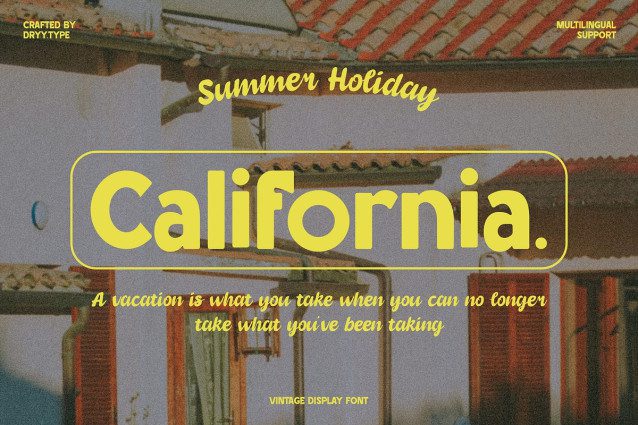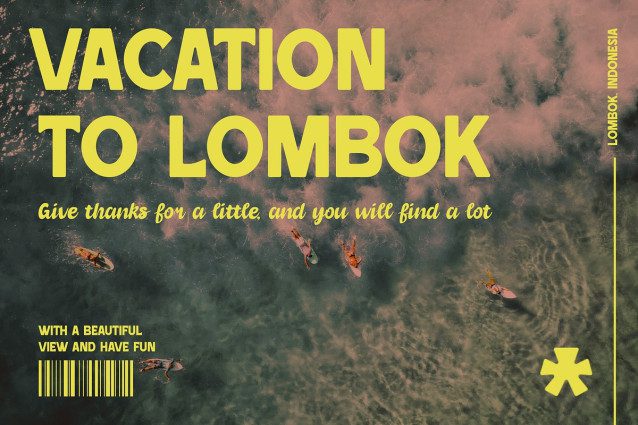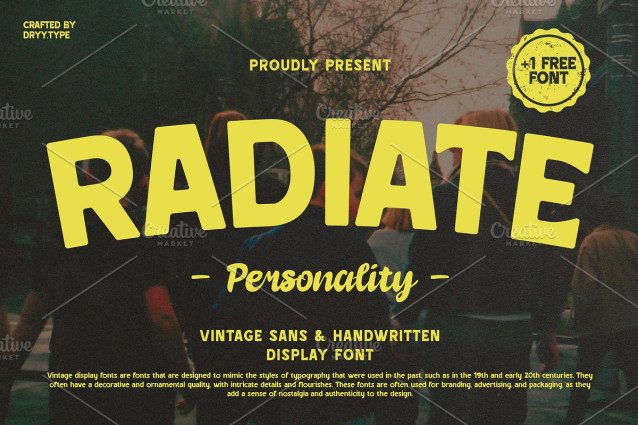
Radiate Font
Radiate Font is a vintage font and a free Personality font This font I created is meaningful & very versatile, it goes well with various designs, elevating them to the highest level. Add this font to your favorite creative ideas and see how it comes to life!